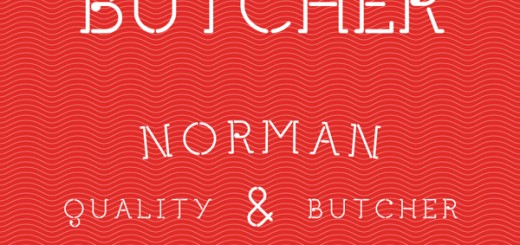
Miss Donna
Anton Scholtz
Publisher: Scholtz Fonts
Miss Donna – contemporary, powerful, versatile and casual. Curvy, sassy, fast-talking, and utterly useable, she takes you into the world of movie posters, decor ads, fashion posters and tags, greeting cards and invitations. Her lines are bold, clean…